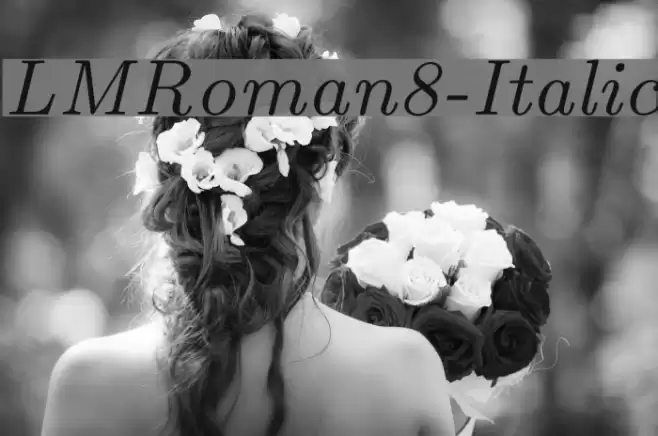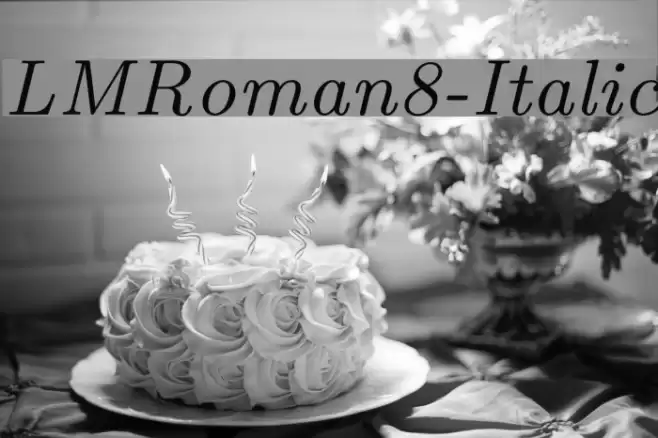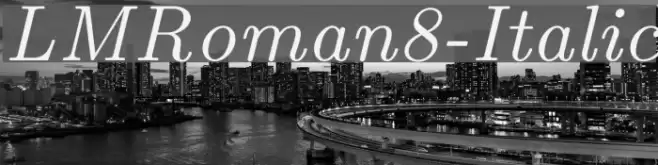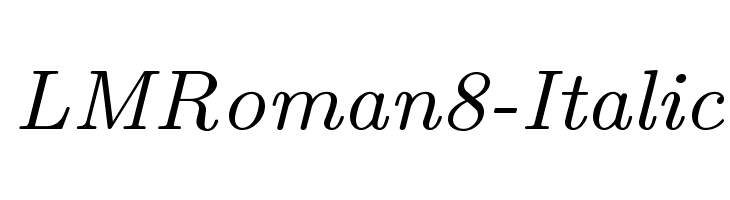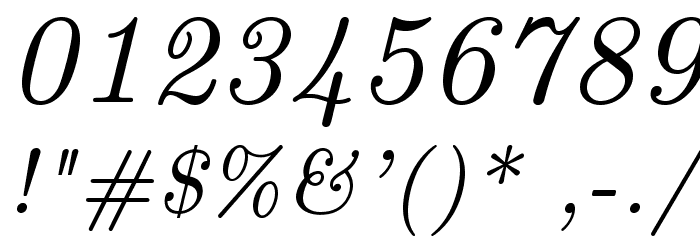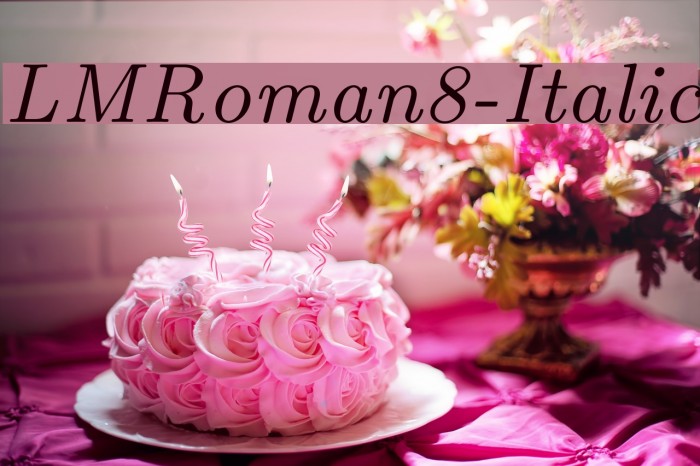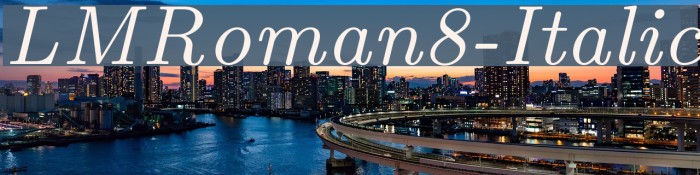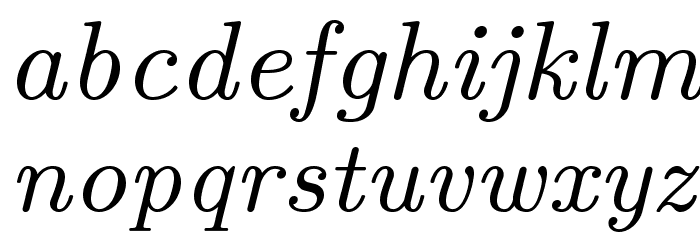
LMRoman8-Italic
This font features a classic and elegant italic style, characterized by its smooth and flowing letterforms. The serifs are subtle, adding a touch of sophistication without overwhelming the design. The strokes are moderately contrasted, providing a balanced and readable appearance. The uppercase letters are slightly taller than the lowercase, maintaining a harmonious proportion. The numerals are clear and distinct, making them suitable for various applications. Special characters are well-integrated, ensuring consistency across different uses.
An elegant and classic serif italic font with smooth, flowing letterforms.
- Proposed Projects: Ideal for formal invitations, elegant branding, book covers, and editorial design.
- Category: Serif
- Overall Style: Classic